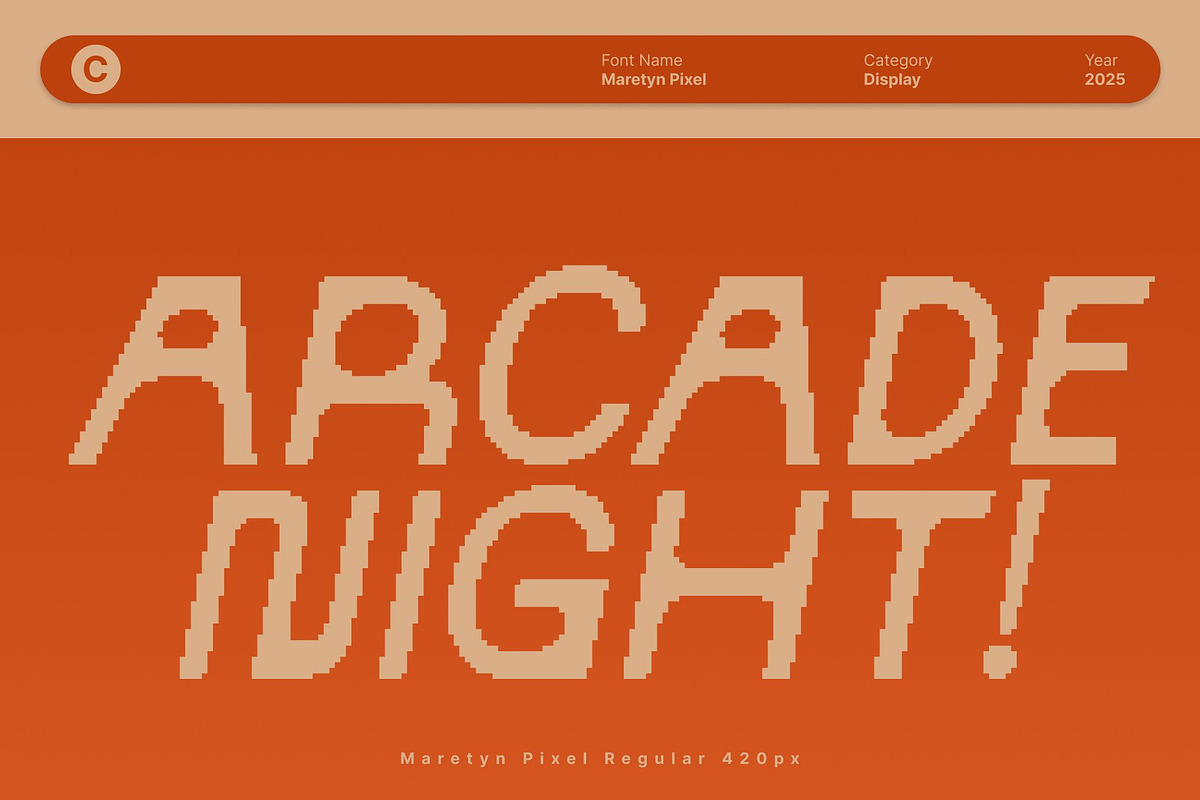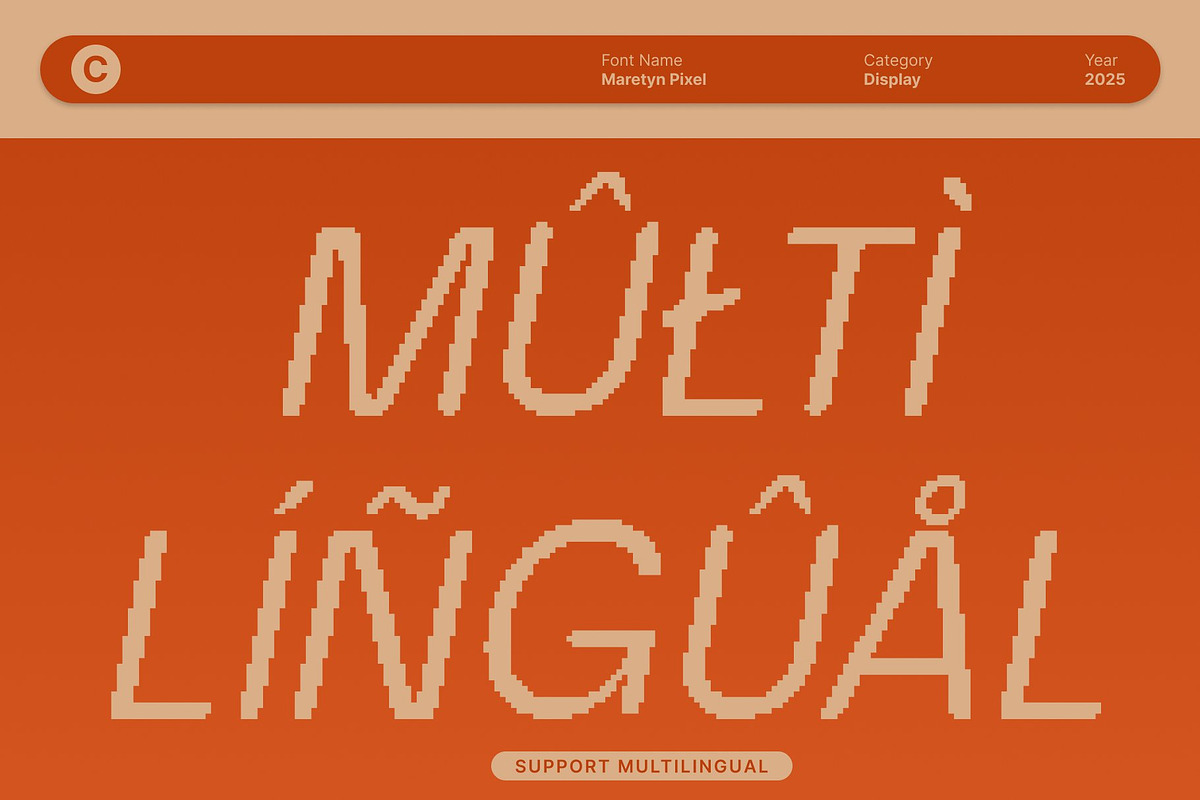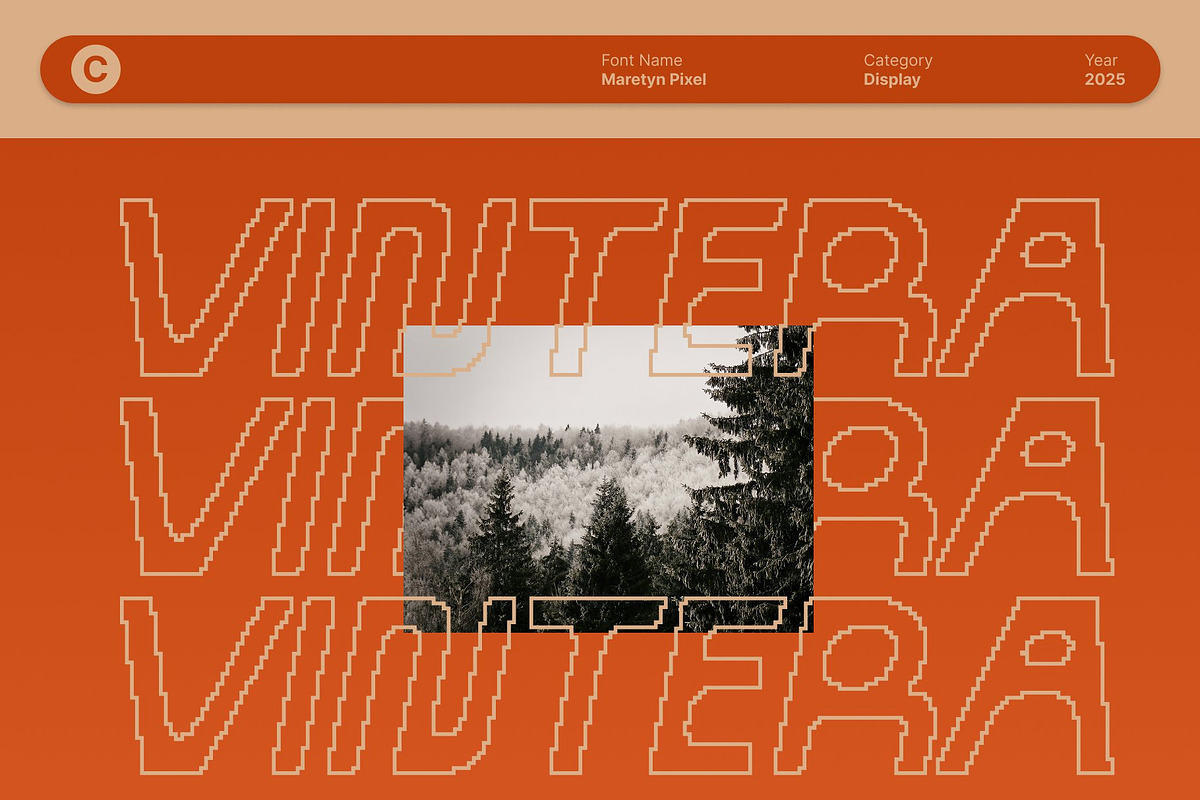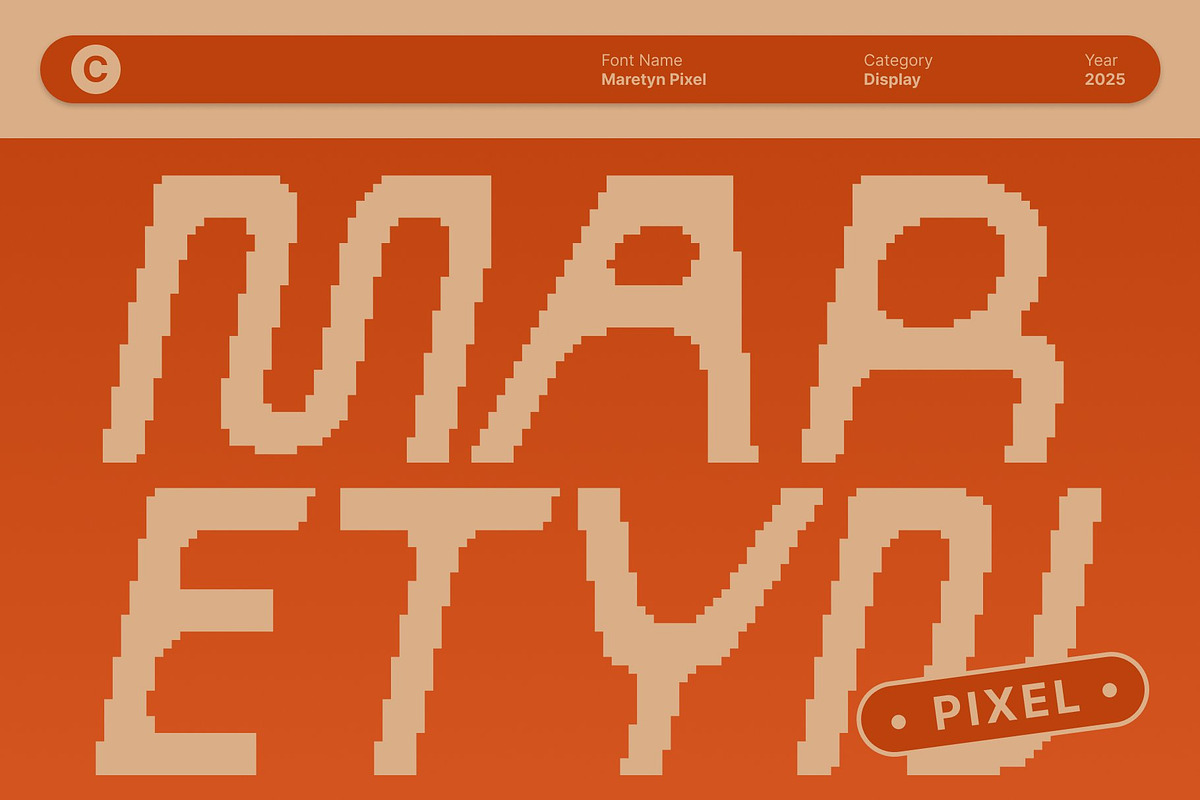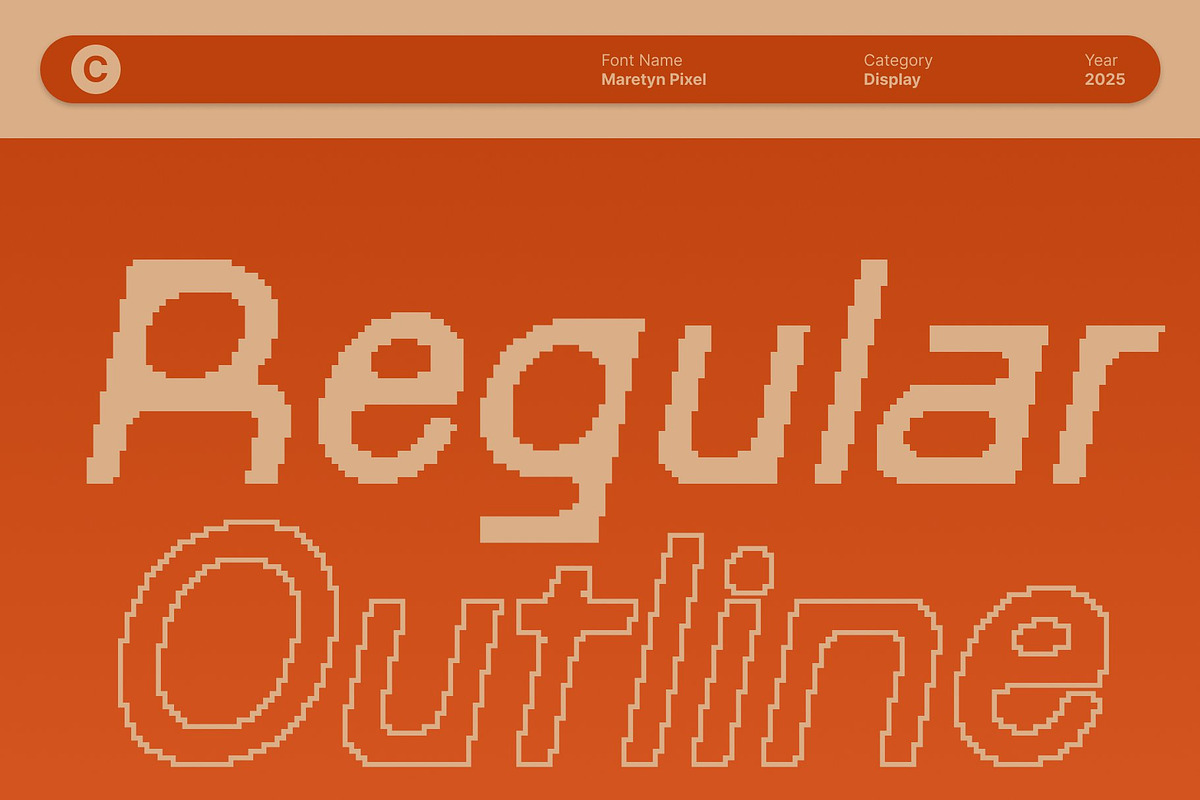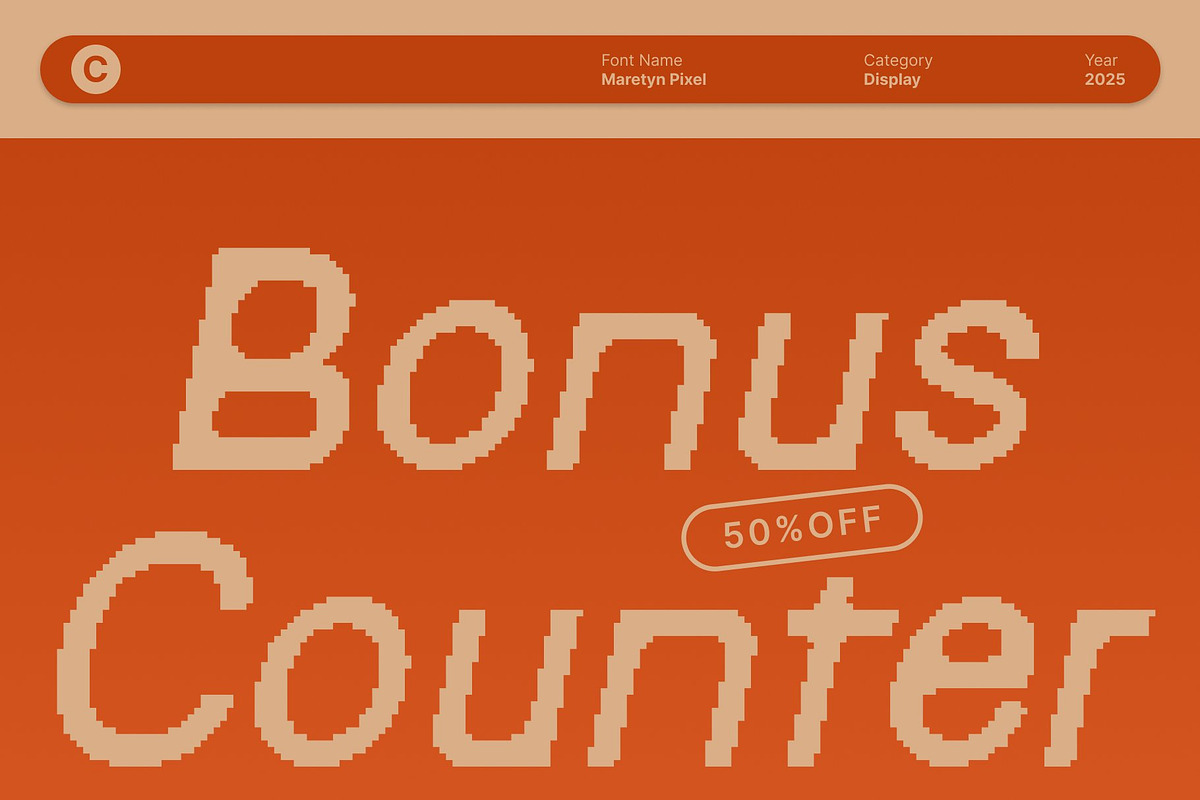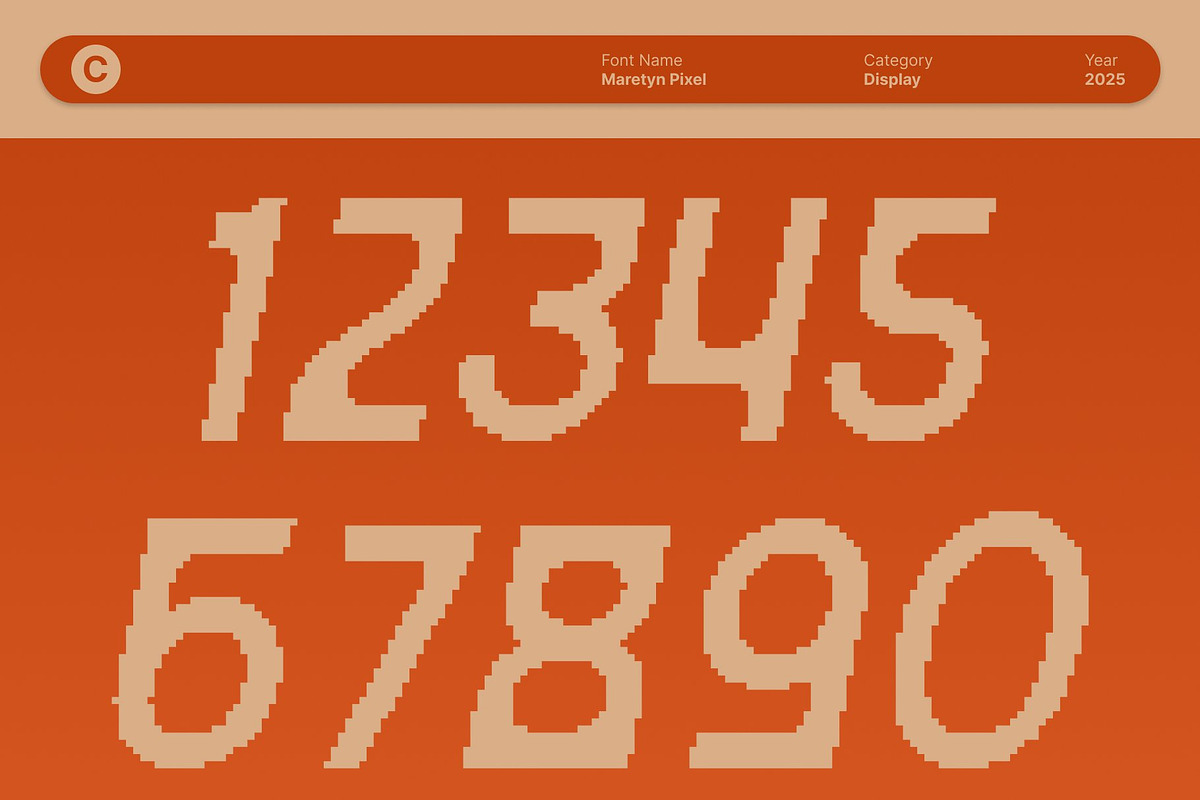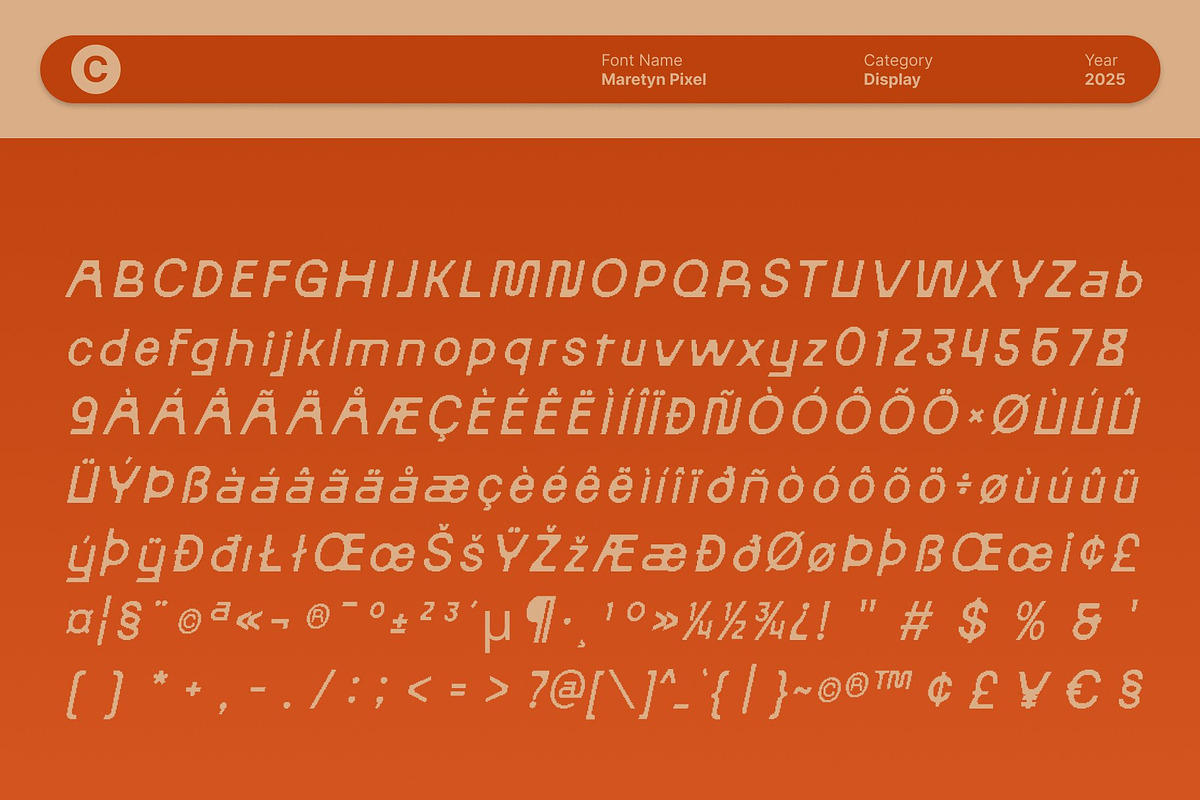
Maretyn Pixel
Maretyn Pixel – Brutalist Sans Serif Display Font with Pixel Precision
Brutalist Power Meets Digital Character This is a brutalist sans serif font that blends sharp geometry with a gritty digital twist. Its angular cuts, firm structure, and unconventional forms create a commanding visual rhythm that instantly captures attention. The pixel texture amplifies its industrial tone, giving every character a unique digital personality that stands out in modern design environments.
Industrial Aesthetic with Sharp, Uncompromising Geometry One of the defining features of this font is its industrial-inspired construction. The sharp corners, solid strokes, and unexpected geometric transitions deliver a strong, assertive presence. These details make the font feel unapologetically bold, ideal for layouts that require impact and aesthetic confidence.
Pixel Texture for a Unique Digital Edge The integrated pixel texture adds depth, personality, and a modern 8-bit visual quality. This subtle digital grain enhances the bold structure of the font, making it perfect for futuristic branding, tech-forward campaigns, or creative projects inspired by retro game culture.
Ideal for Editorials, Posters, and Digital Branding This font excels in display contexts where clarity, attitude, and visual strength are essential. Use it for editorial titles, large-scale posters, experimental graphics, or digital branding that aims to push boundaries. Its combination of industrial strength and digital texture makes it a versatile option for designers seeking a font that commands attention while still offering a modern, artistic edge.